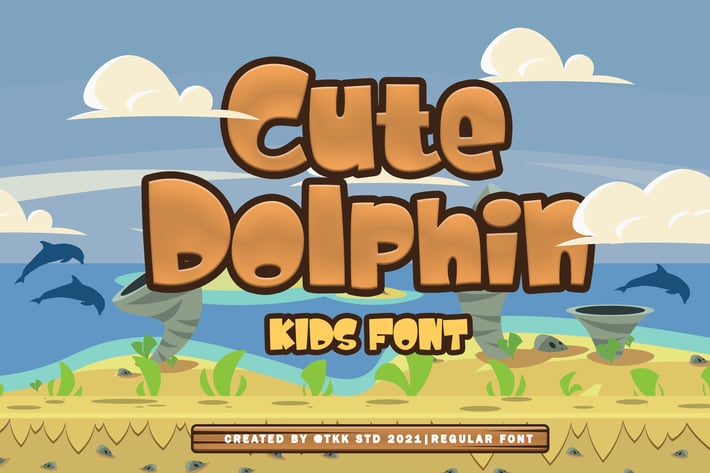
Cute Dolphin - Kids font
Cute Dolphin is a playful display typeface crafted for projects that need joyful impact and youthful charm. With its bouncy baseline, rounded shapes, and chunky proportions, this font brings a cartoonish vibe that fits beautifully in gaming interfaces, storybook titles, and children’s products. The visual rhythm feels energetic, making it both engaging and easy to read, even at larger display sizes.
The font’s soft edges and exaggerated curves give it a delightfully expressive personality—perfect for creative work that speaks to young audiences or playful themes.
From mobile games to classroom materials, Cute Dolphin helps you create designs that are instantly fun and emotionally resonant. Its readability makes it a great choice for in-app titles, toy packaging, YouTube thumbnails, and even e-learning graphics. Whether you’re developing an indie kids game or designing playful party invitations, this typeface will hook your audience with friendliness and flair.
Key Features:
Rounded, chunky display style with soft terminals
Strong visual presence for kid-focused design
Works beautifully in digital apps, cartoons, product packaging
Unique baseline bounce adds motion and expression
Instantly sets a cheerful, light-hearted tone
Basic latin A-Z and a-z